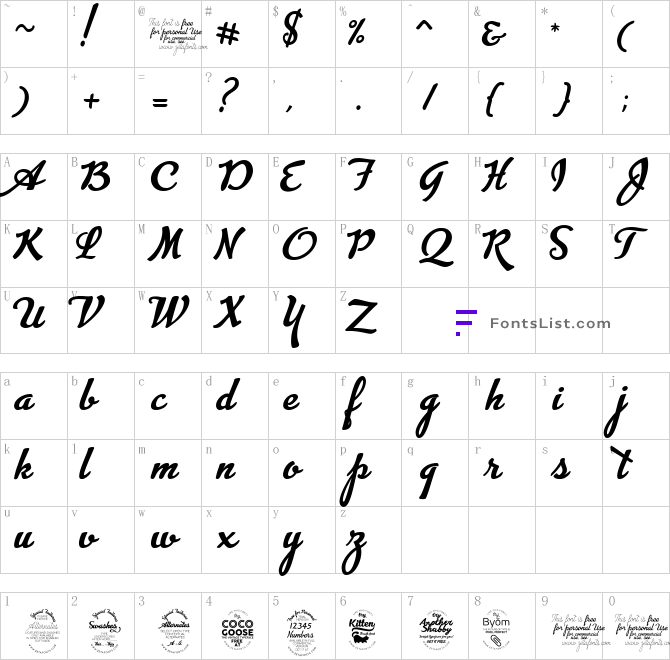
- Font Name:Advertising Script
Advertising-Script-Bold-copy-1.ttf is a very beautiful artistic font, Advertising-Script-Bold-copy-1.ttf is widely used in the design and printing of various books and pictures,Advertising-Script-Bold-copy-1.ttf has a strong visual impact,Advertising-Script-Bold-copy-1.ttf is a commonly used font in newspapers, magazines and books, and is used in posters, e-commerce Poster design, store design, logo design, font design and other fields.Advertising-Script-Bold-copy-1.